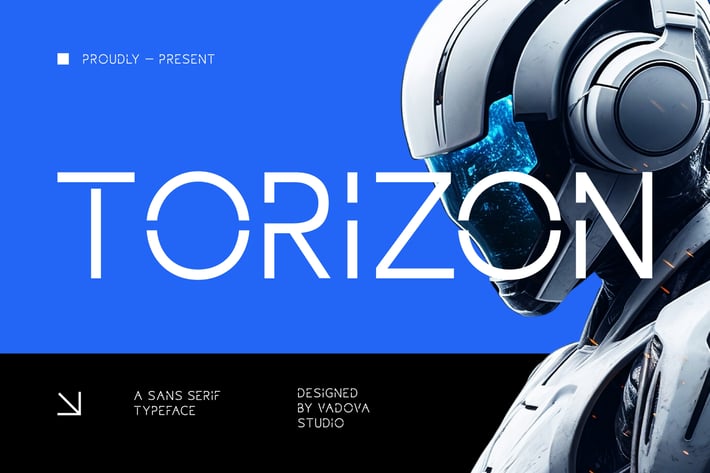
Torizon Sans Serif Font
Torizon Futuristic Sans Serif Font is a sleek, futuristic sans-serif with a digital edge and sci-fi soul. Its bold geometry and sliced-through elements evoke a sense of progress, speed, and innovation. The font feels clean, modern, and cinematic—perfect for tech-forward branding and bold storytelling.
Designed for future-facing industries and creatives, Torizon shines in sci-fi posters, tech startups, VR/AR branding, esports, YouTube thumbnails, and AI or robotics presentations. Its high-tech aesthetic makes it ideal for digital agencies and content creators on platforms like Instagram,
Torizon Futuristic Sans Serif Font Suitable for futuristic branding, tech startup logos, sci-fi movie titles, game UI, and NFT visuals. It fits fashion campaigns, editorial layouts, and product packaging. Ideal for websites, app interfaces, YouTube thumbnails, social media posts, pitch decks, and AR/VR environments. Great for motion graphics, stream overlays, and digital presentations.